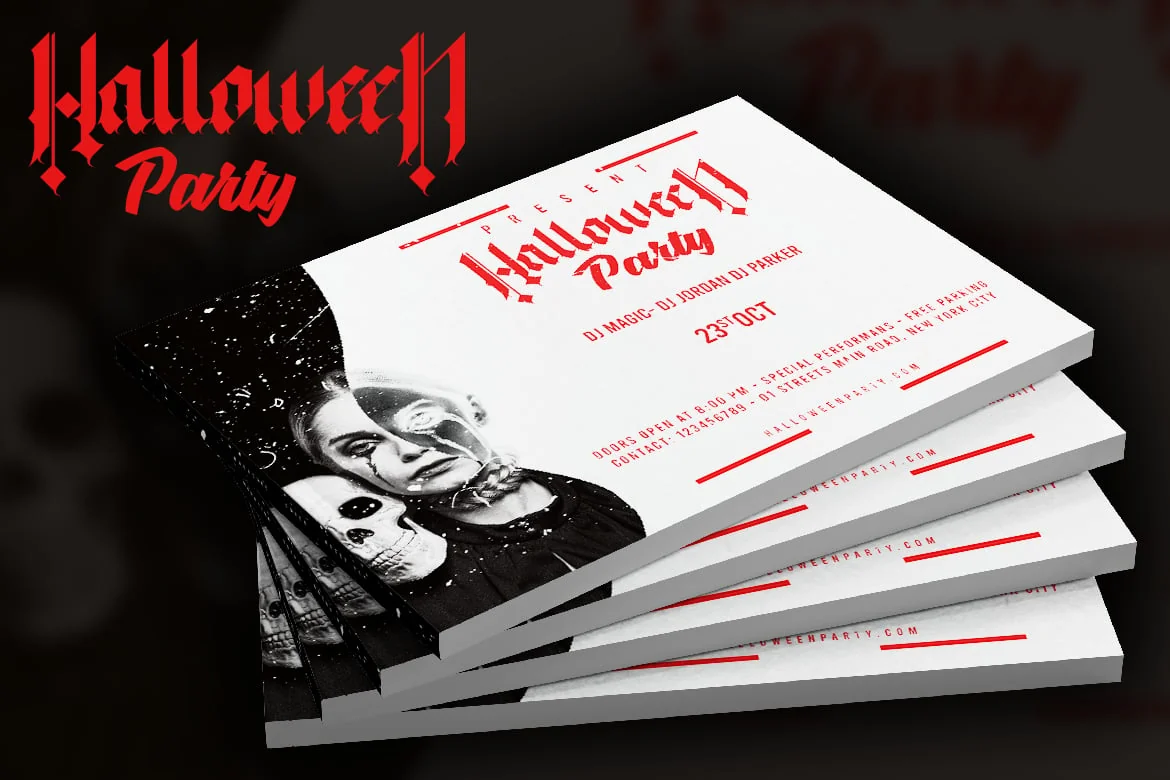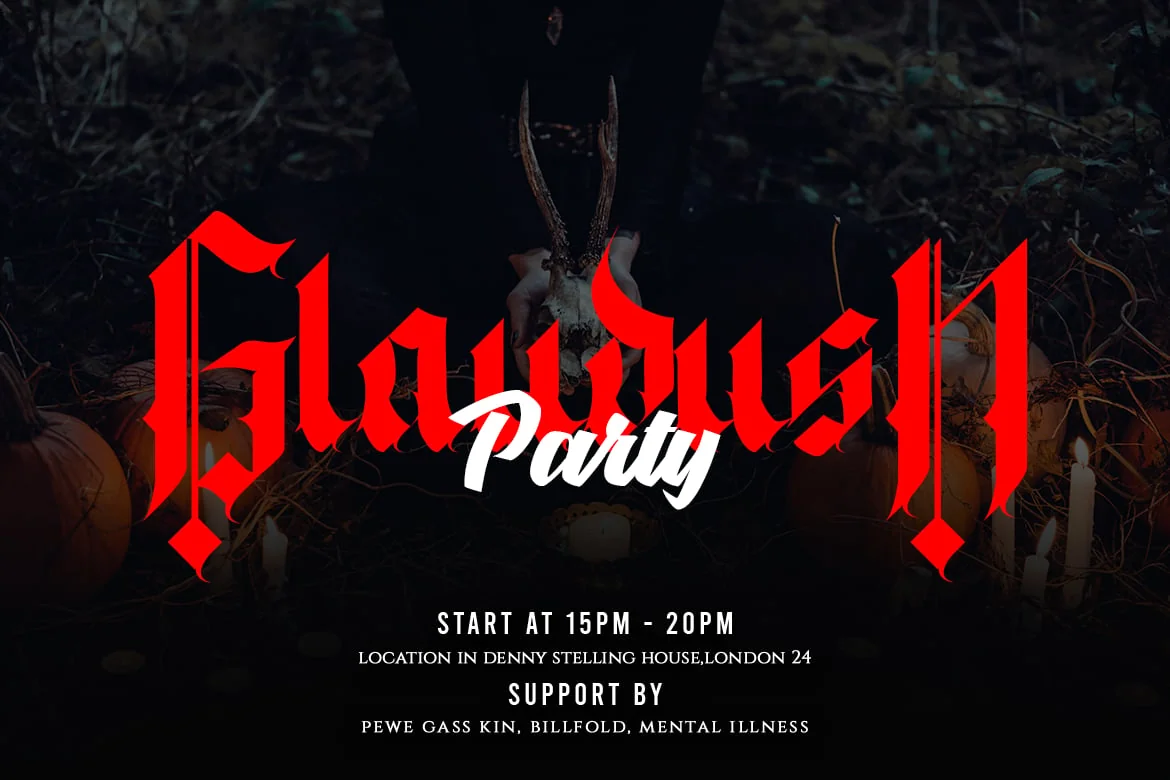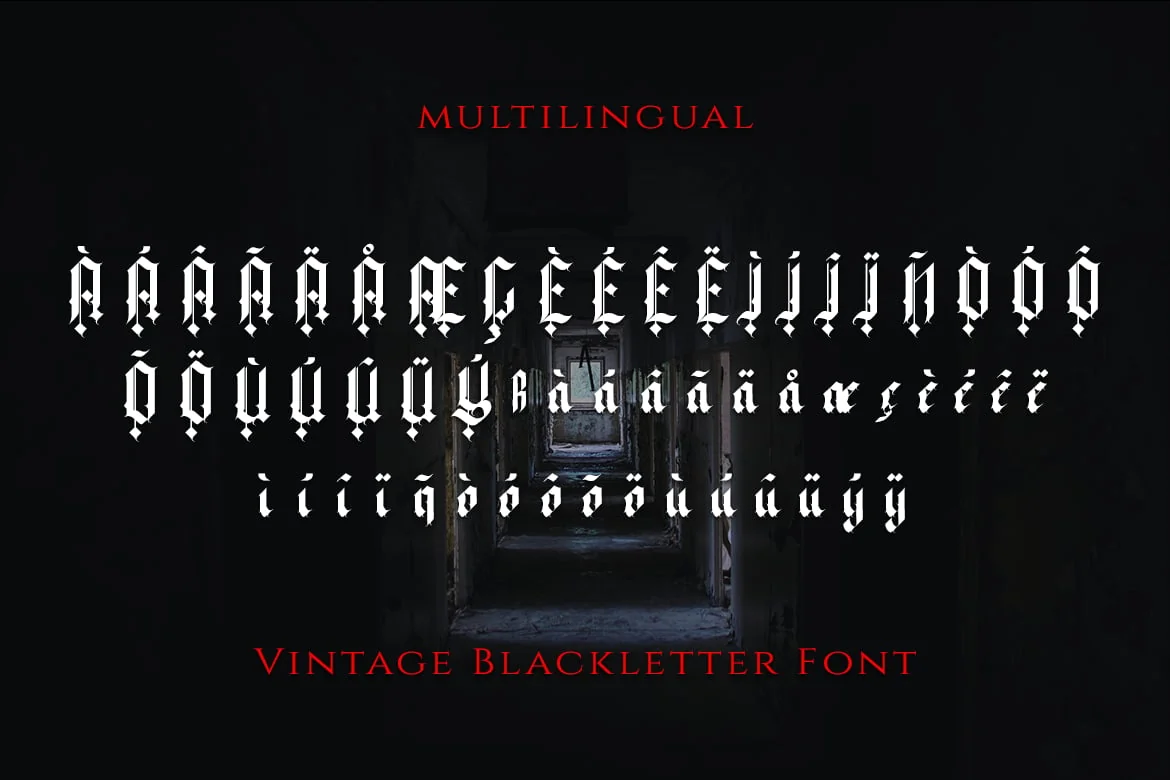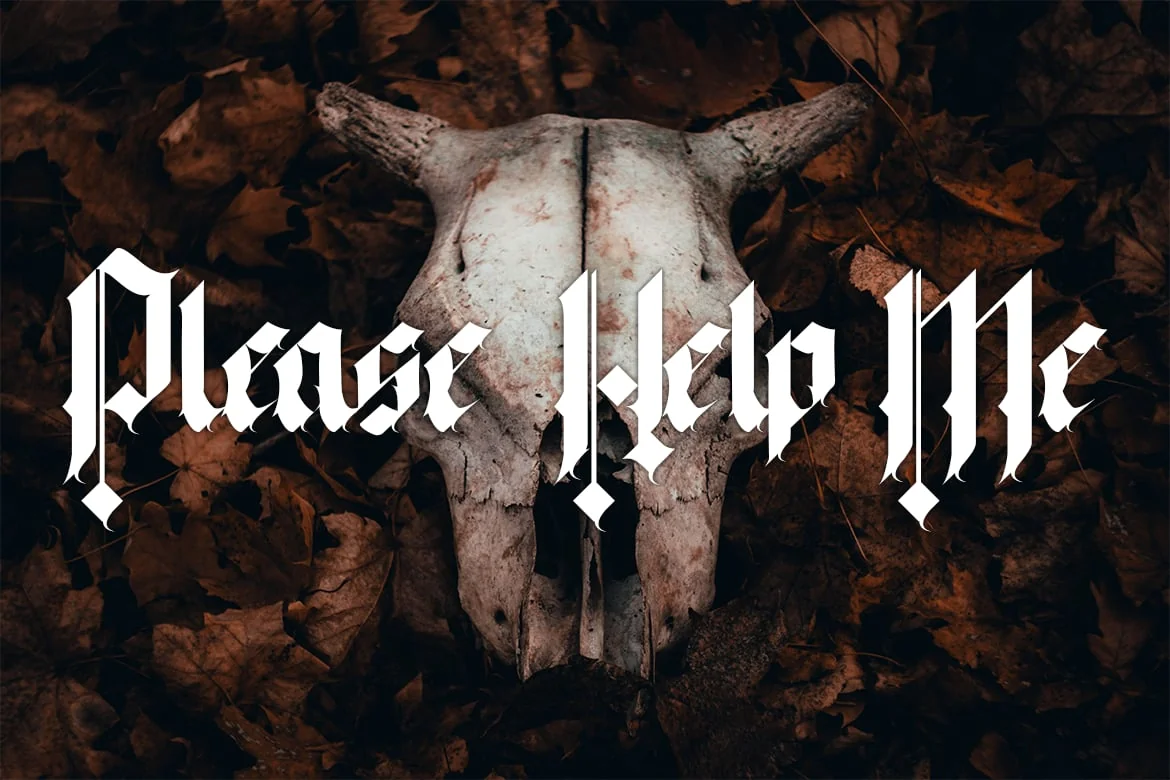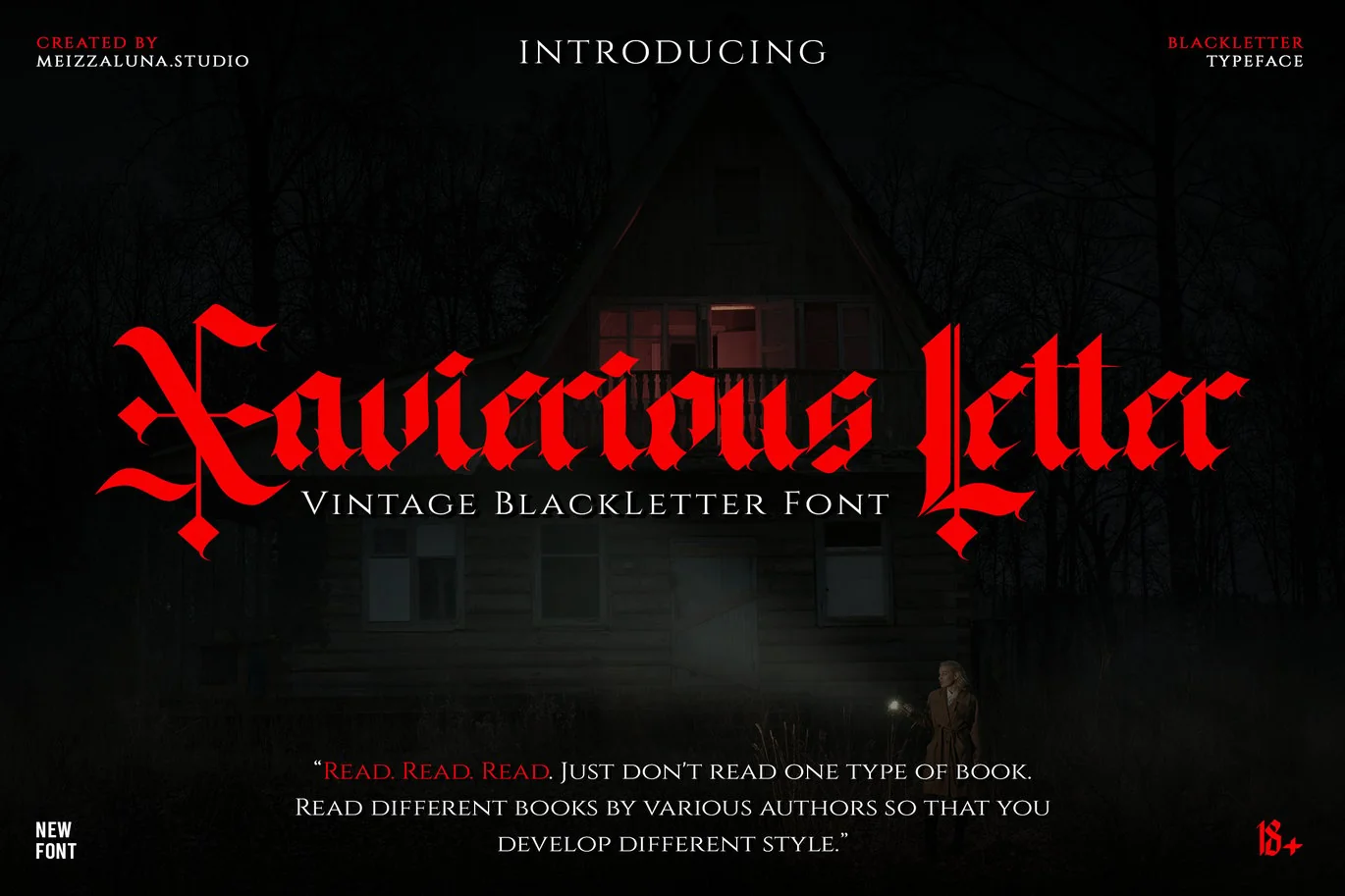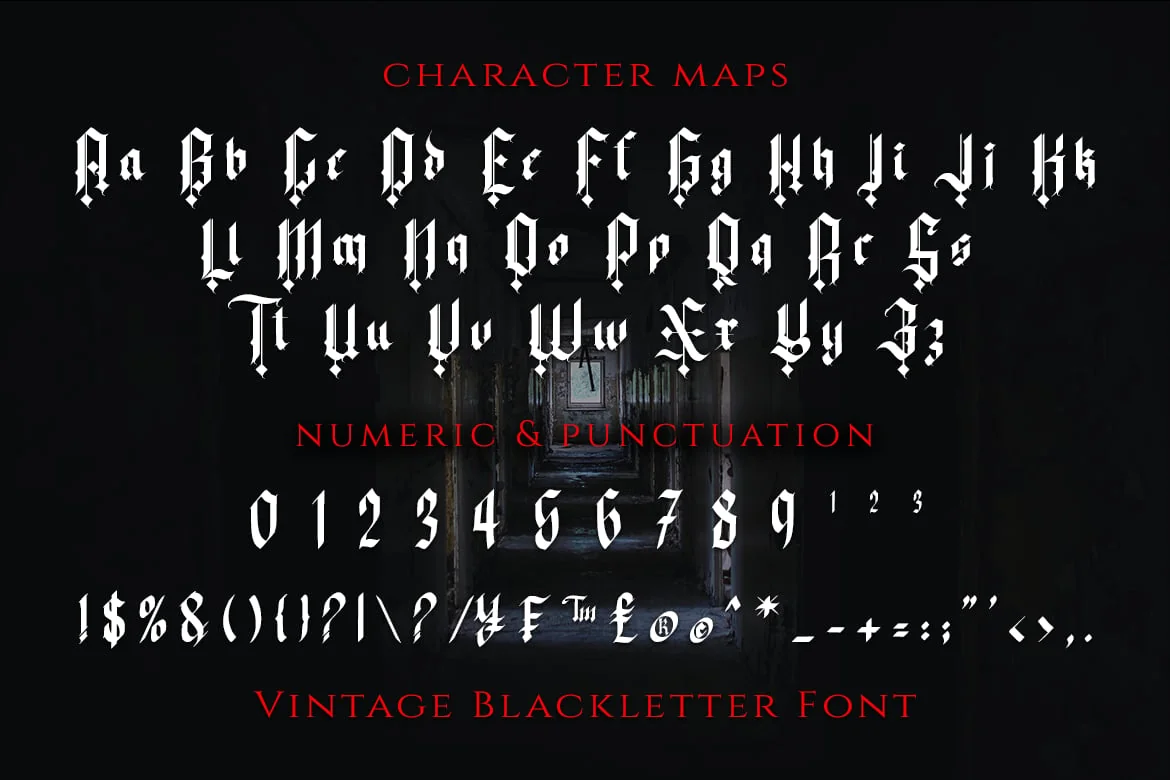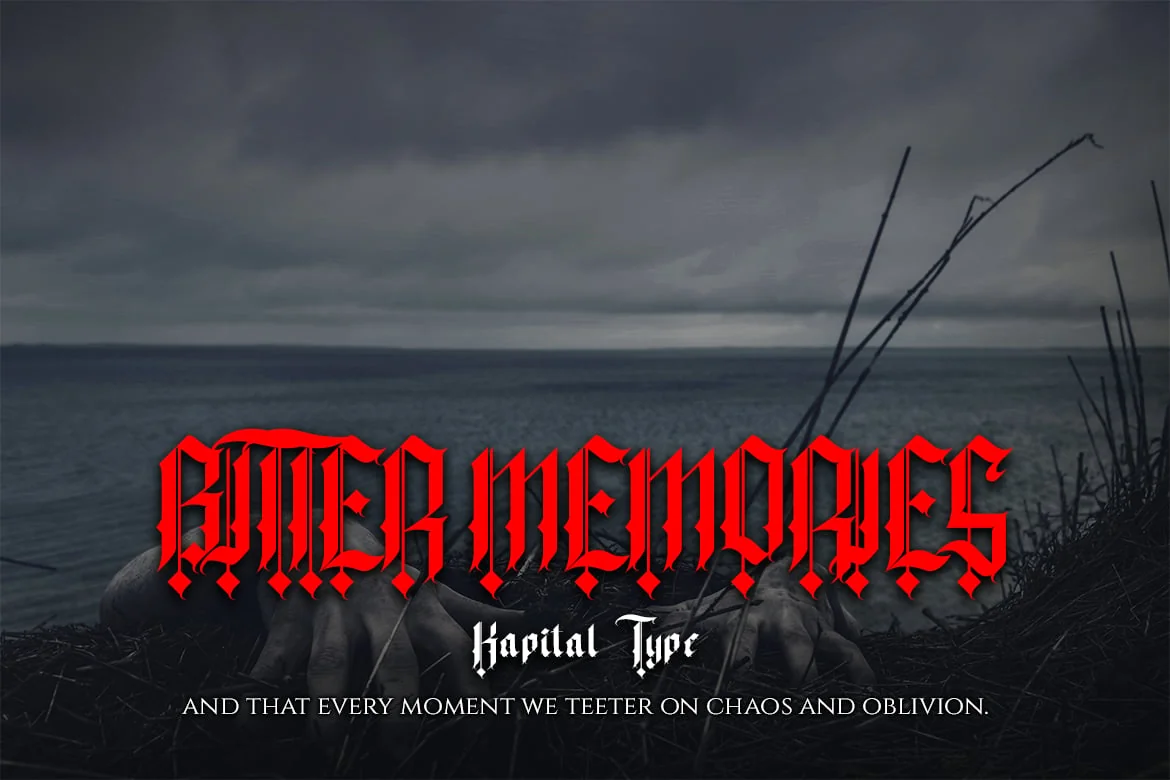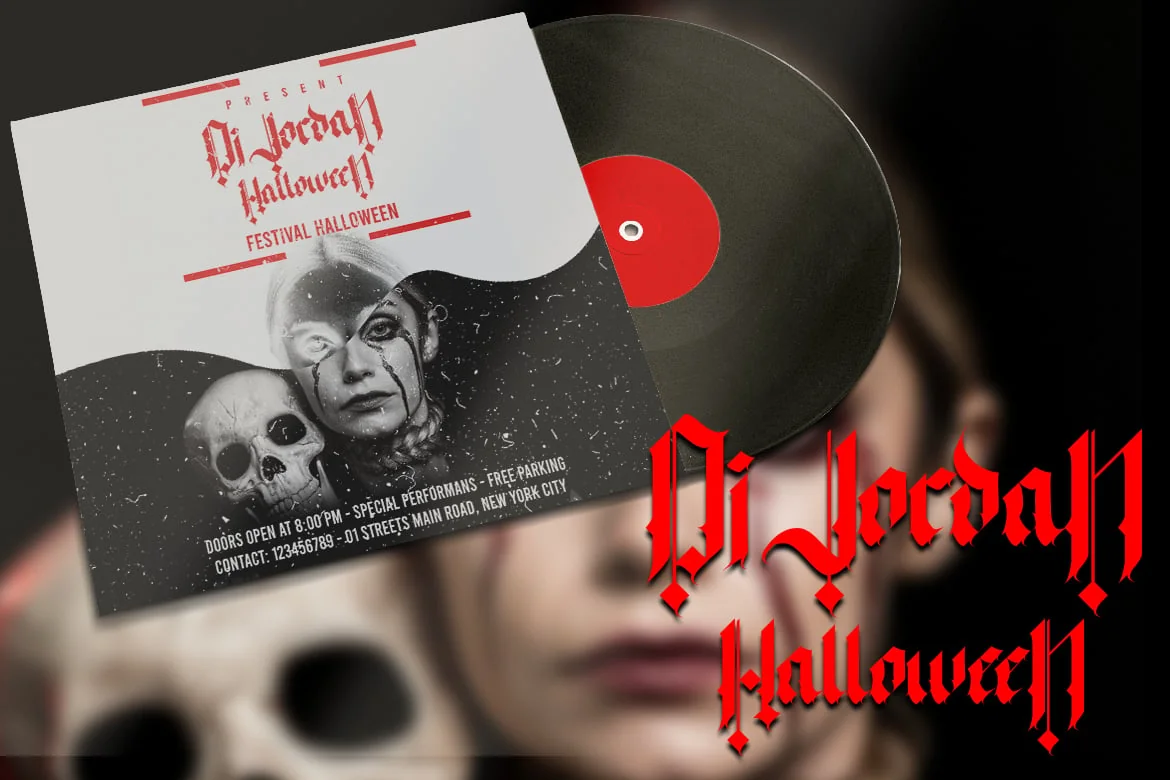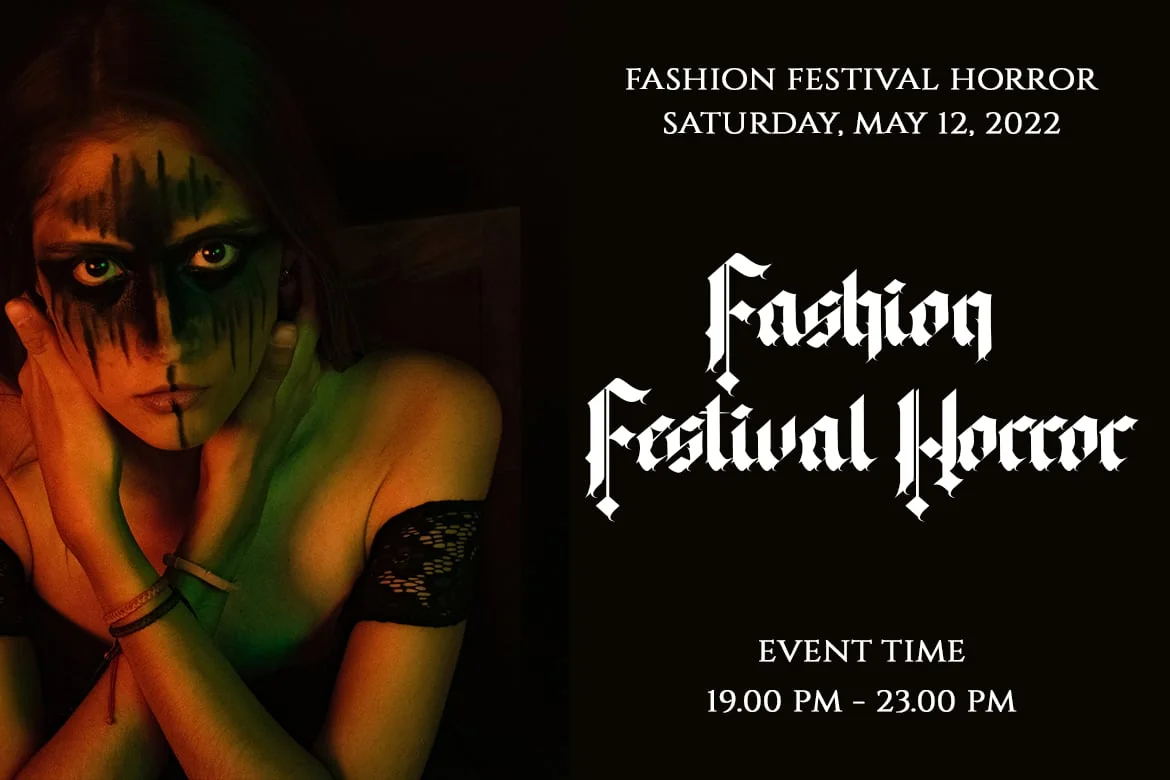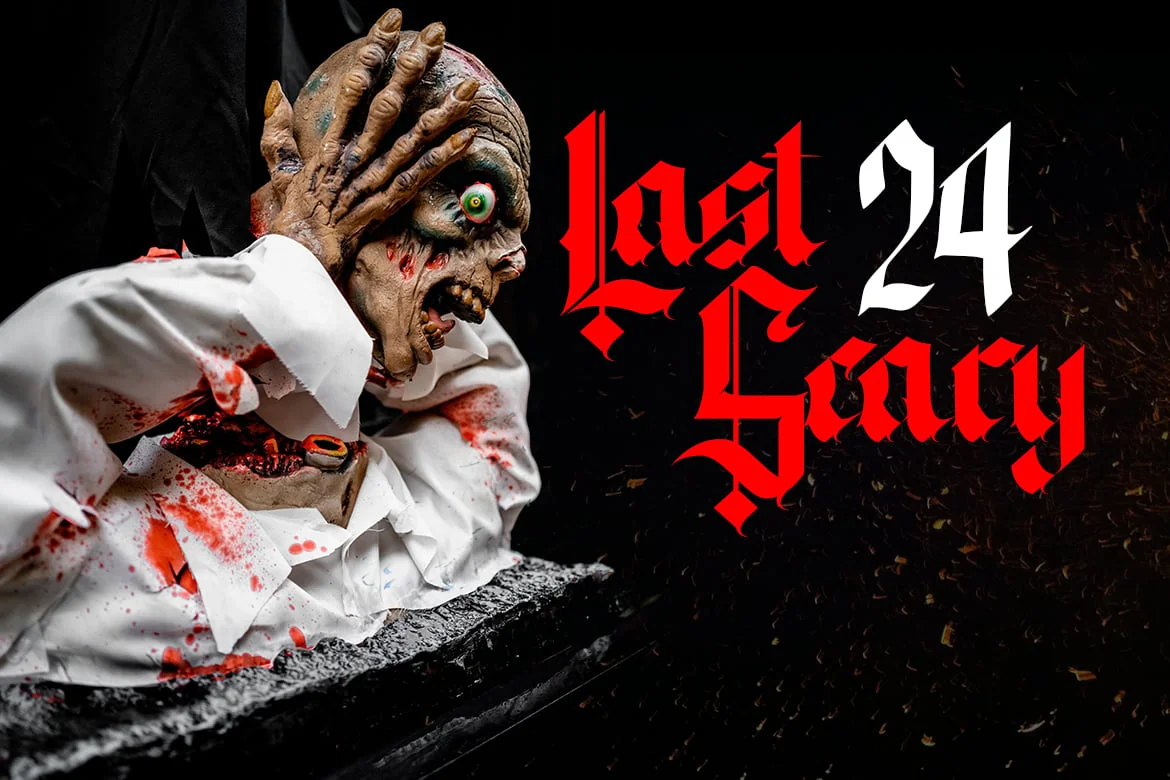
Xavierious Letter – Vintage Blackletter Font
Xavierious Letter is a unique and vintage blackletter font with a strong personality. It’s great for crafters and designers. Compatible with tools such as Photoshop and Silhouette design studio. This font is PUA encoded, which means you can access all of the glyphs and swashes with ease!